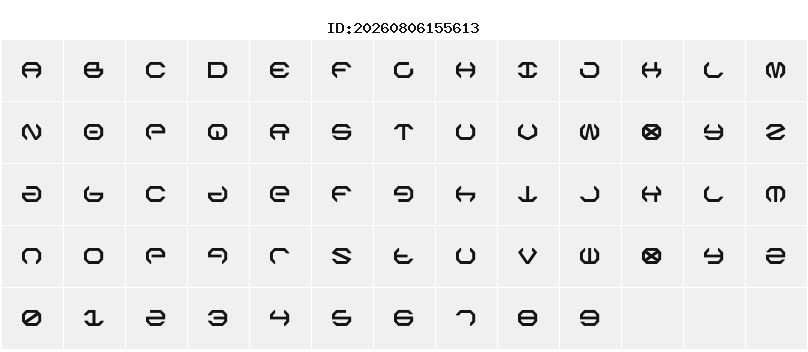
• Font Name: Omega Sentry
• Full Font Name: Omega Sentry
About Omega Sentry.ttf
Omega Sentry.ttf is a modern, elegant sans-serif font designed for ultimate readability and visual harmony. Perfect for branding, headlines, web design, and print materials.